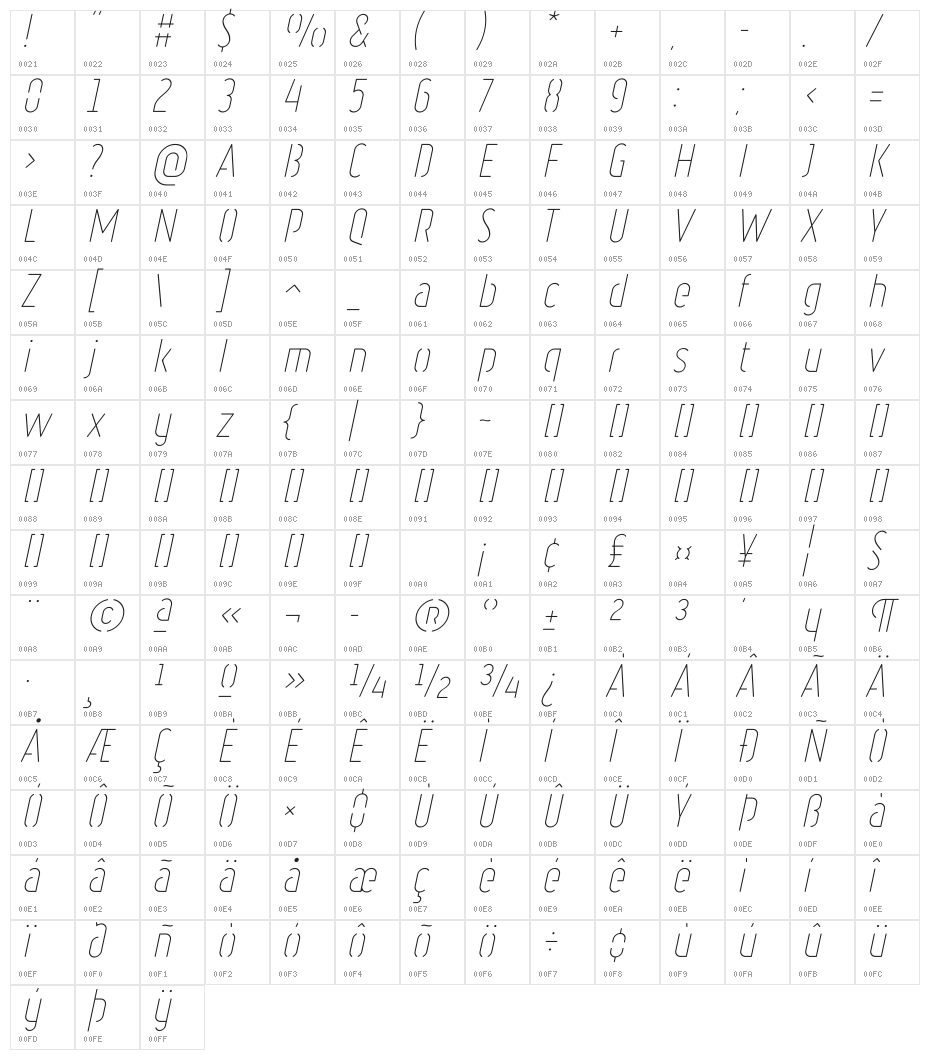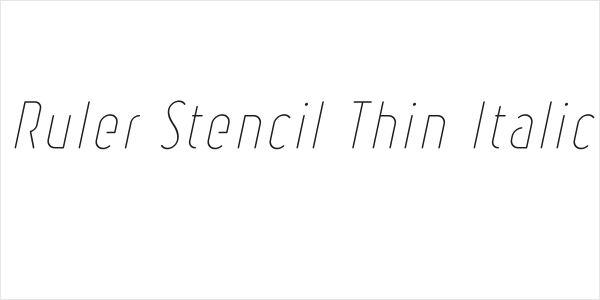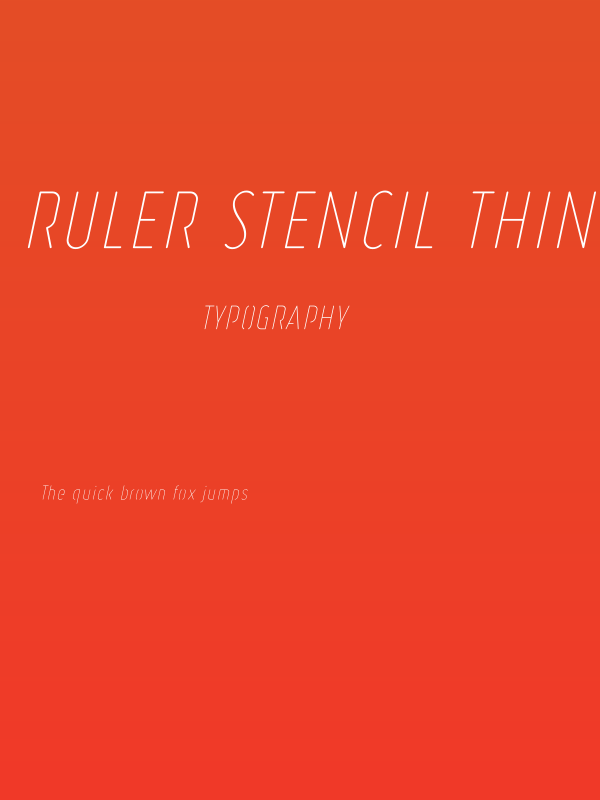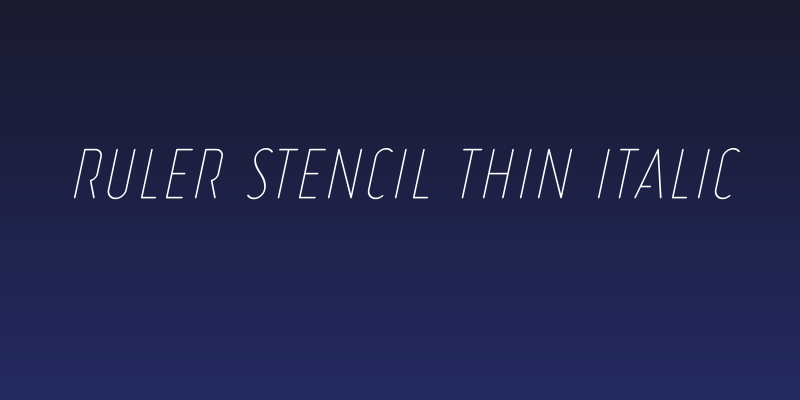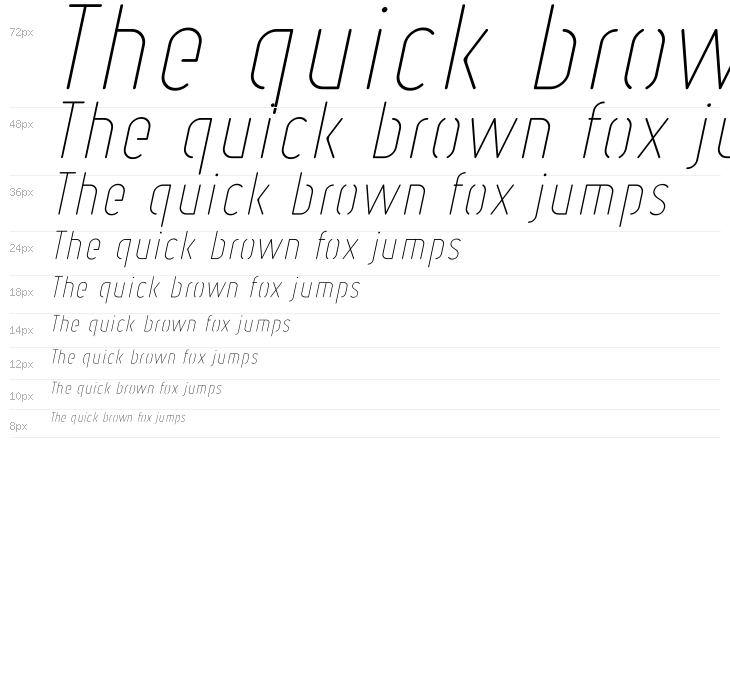
Ruler Stencil Thin Italic Font
Ruler Stencil Thin Italic Description
This font features a sleek, modern design with a stencil-like appearance. The characters are thin and elongated, with a distinct italic slant that adds a dynamic feel. The uppercase and lowercase letters maintain a consistent style, with sharp angles and clean lines. Numbers and special characters are designed to match the overall aesthetic, making this font versatile for various applications. The spacing between characters is tight, enhancing its streamlined look.
| Proposed Projects | Ideal for modern branding, tech-related designs, futuristic posters, and minimalist logos. |